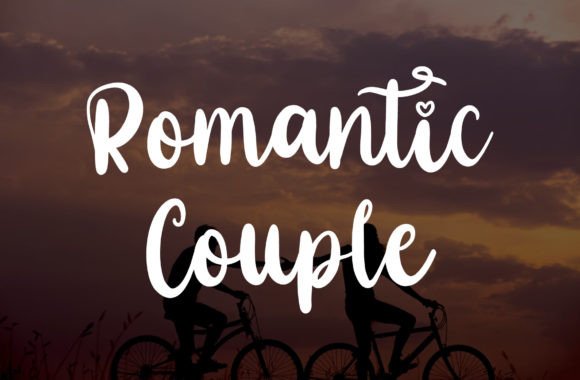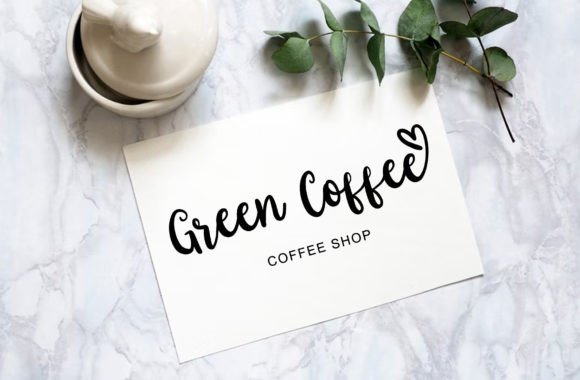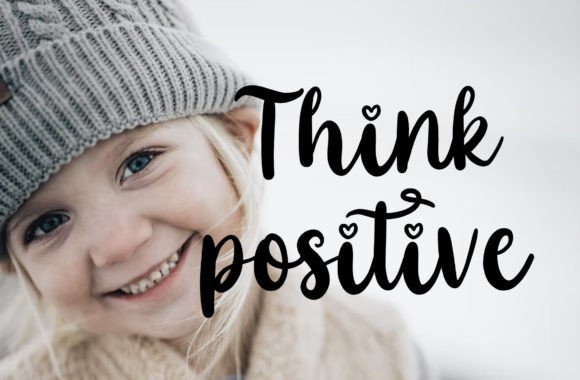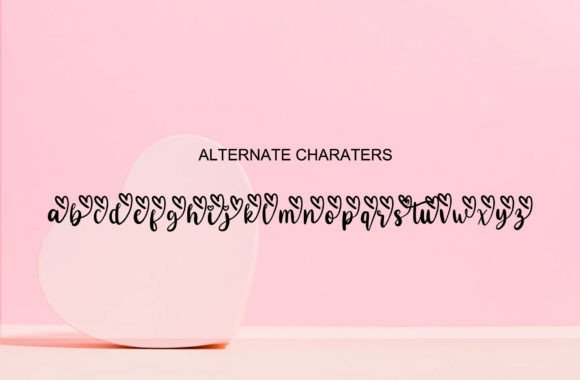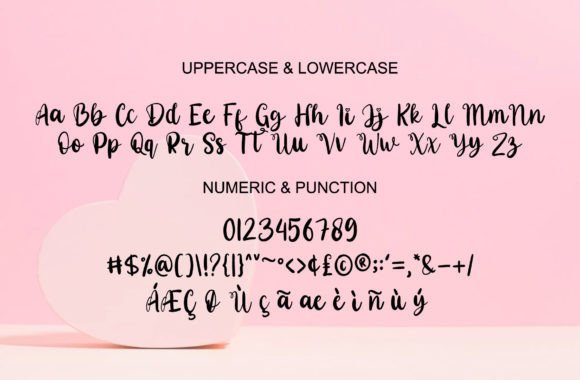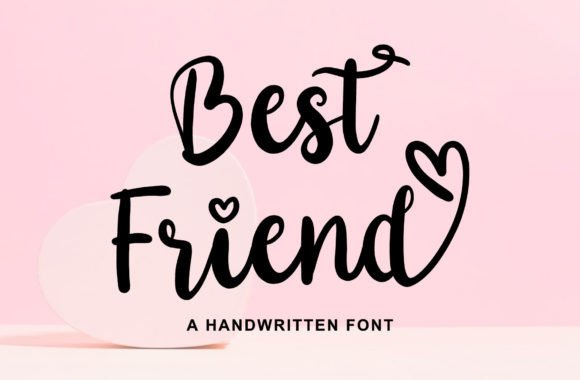
Introducing Best Friend Font: Elevate Your Designs with Elegance and Class
Are you tired of using the same old fonts in your designs? Do you want to add a touch of elegance and sophistication to your projects? Look no further than Best Friend Font, a lovely and delicate script font that is sure to take your designs to the next level. In this article, we’ll dive into the world of Best Friend Font, exploring its features, benefits, and uses, as well as provide tips and inspiration for designers and crafters.
What is Best Friend Font?
Best Friend Font is a beautiful and refreshing script font that exudes elegance and class. This font was particularly crafted for those who need a stunning and sophisticated look to their designs. With its delicate and refined strokes, Best Friend Font is perfect for adding a touch of luxury and sophistication to any project.
Key Features of Best Friend Font
- Delicate and Refined Strokes: Best Friend Font features delicate and refined strokes that give it a elegant and sophisticated look.
- Script Font Style: This font is a script font, making it perfect for adding a touch of elegance and luxury to your designs.
- Easy to Read: Despite its delicate nature, Best Friend Font is easy to read, making it perfect for use in a variety of design projects.
- Versatile: Best Friend Font can be used in a variety of design projects, from wedding invitations to branding and packaging.
Benefits of Using Best Friend Font
So, why should you choose Best Friend Font for your next design project? Here are just a few benefits of using this stunning font:
- Adds Elegance and Sophistication: Best Friend Font adds a touch of elegance and sophistication to any design project.
- Stand Out from the Crowd: With its unique and delicate style, Best Friend Font is sure to make your designs stand out from the crowd.
- Easy to Pair with Other Fonts: Best Friend Font pairs well with a variety of other fonts, making it easy to create a cohesive and stylish design.
Uses for Best Friend Font
So, what can you use Best Friend Font for? The possibilities are endless! Here are a few ideas to get you started:
- Wedding Invitations: Best Friend Font is perfect for wedding invitations, adding a touch of elegance and sophistication to your wedding stationery.
- Branding and Packaging: Use Best Friend Font to add a touch of luxury and sophistication to your branding and packaging.
- Signage: Best Friend Font is perfect for signage, adding a touch of elegance and style to your signs and displays.
- Digital Designs: Use Best Friend Font in your digital designs, such as social media graphics and website headers.
Tips for Using Best Friend Font
Here are a few tips for using Best Friend Font in your design projects:
- Use it Sparingly: Best Friend Font is a delicate font, so use it sparingly to avoid overwhelming your design.
- Pair it with Other Fonts: Pair Best Friend Font with other fonts to create a cohesive and stylish design.
Need some inspiration for using Best Friend Font in your design projects? Here are a few ideas to get you started:
- Create a Beautiful Wedding Invitation Suite: Use Best Friend Font to create a stunning wedding invitation suite, complete with invitations, save the dates, and thank you cards.
- Design a Luxurious Brand Identity: Use Best Friend Font to create a luxurious brand identity for a high-end client.
- Make a Statement with Signage: Use Best Friend Font to create a statement piece of signage for a business or event.
| Font Name | Best Friend Font |
| Author | Fontysia |
In conclusion, Best Friend Font is a lovely and delicate script font that exudes elegance and class. With its delicate and refined strokes, Best Friend Font is perfect for adding a touch of luxury and sophistication to any design project. Whether you’re a designer, crafter, or DIY enthusiast, Best Friend Font is sure to become a favorite in your font collection.